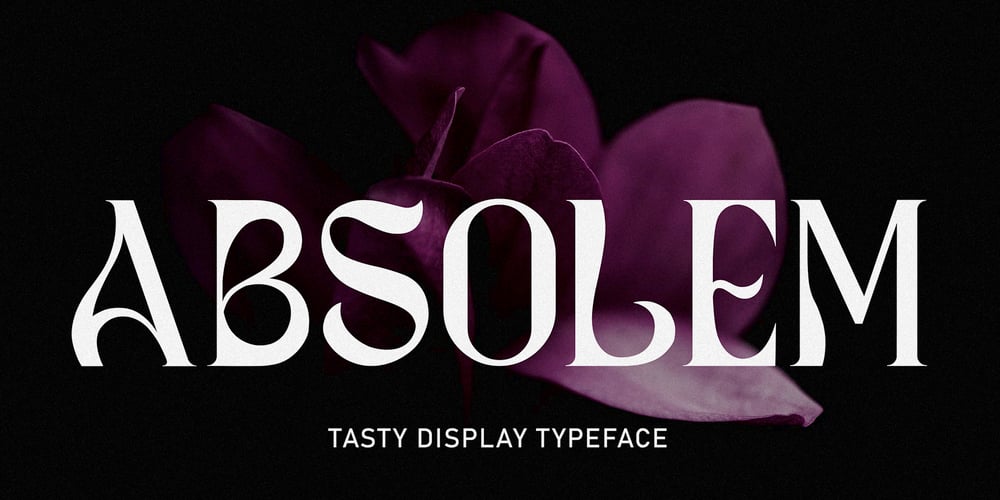
Absolem Font Family was designed by Anastasia Kuznetsova and published by Anastasia Kuznetsova. Absolem contains 4 styles and family package options. Tasty and sweet, Absolem is a sleek high contrast serif type with. Absolem is excellent for headlines, packaging, posters and any other display use conveying an elegant impression. I invite you to familiarize yourself with the preliminary images and hope that you will be imbued with my vision of this creative font, which, I am sure, will be suitable for all the interesting projects you are working on.Fonts can be opened and used in any software that can read standard fonts, even in MS Word.